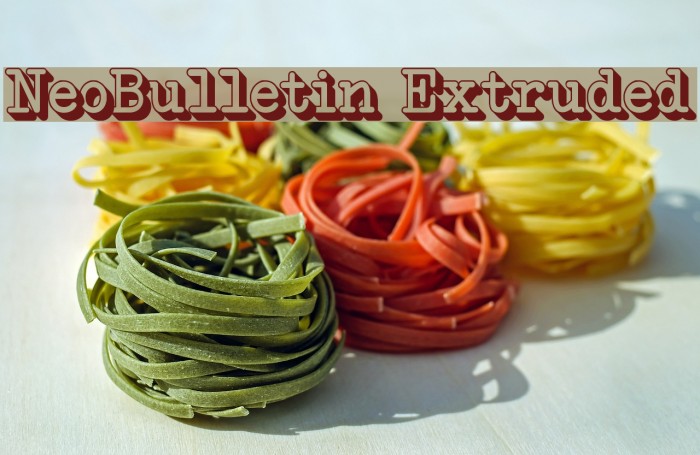
NeoBulletin Extruded Font
This font features a bold, extruded style with a three-dimensional effect, making it stand out prominently. The characters are well-defined with thick strokes and a shadow that gives a sense of depth. The uppercase and lowercase letters maintain a consistent style, with rounded edges and a playful yet robust appearance. Numbers and special characters follow the same design principles, ensuring uniformity across all glyphs. The font's unique extruded effect makes it ideal for eye-catching designs.
A bold, extruded font with a three-dimensional effect and rounded edges.